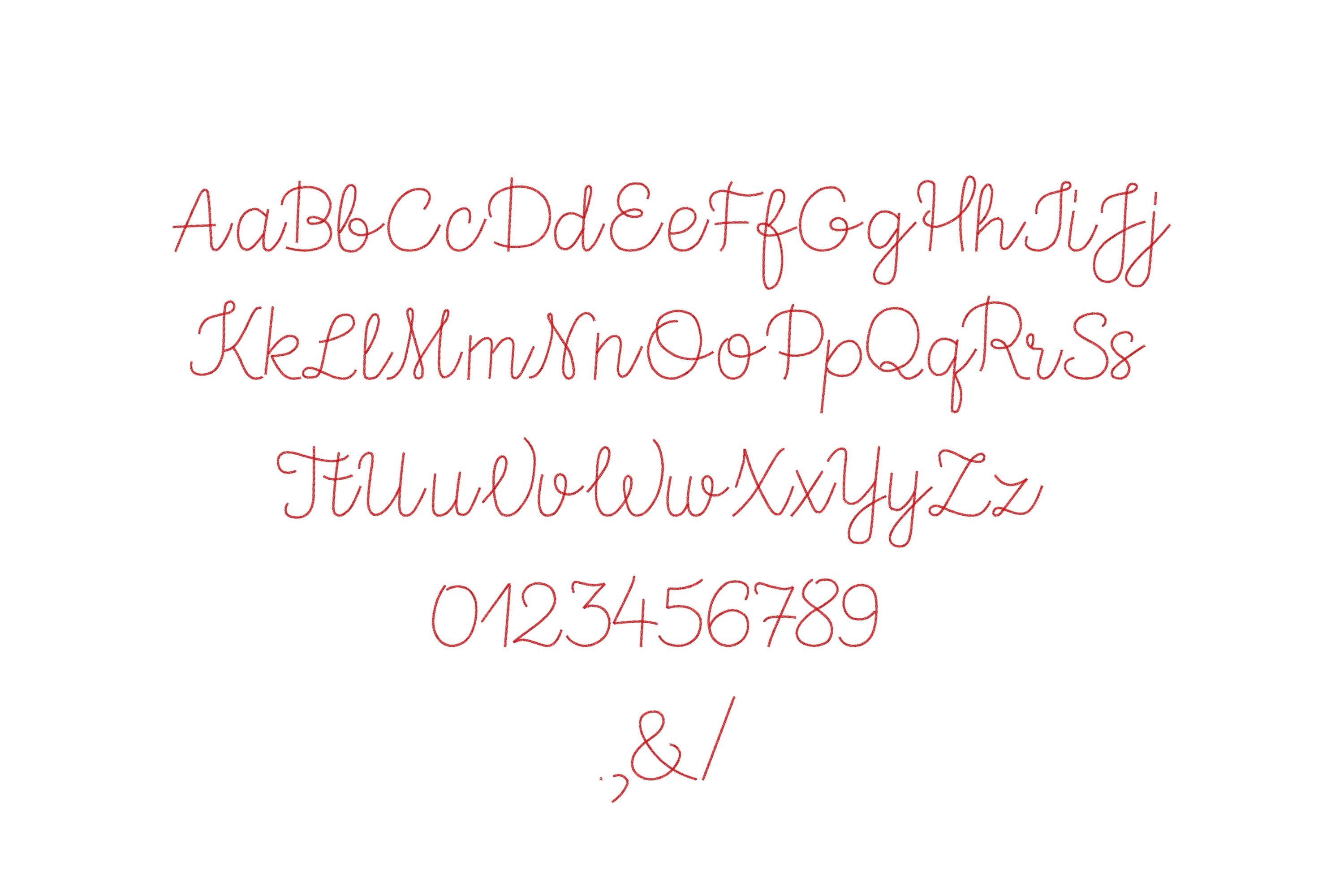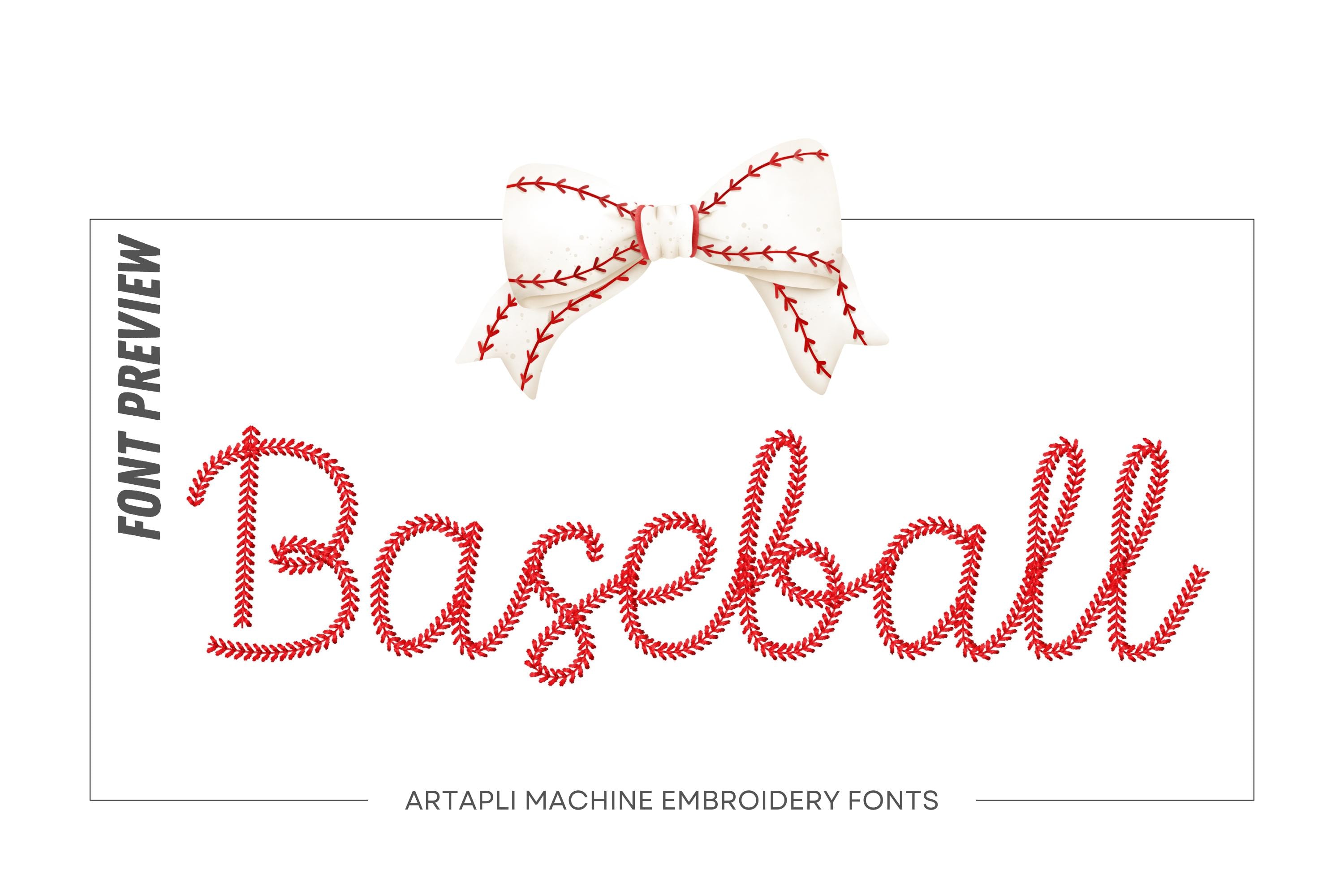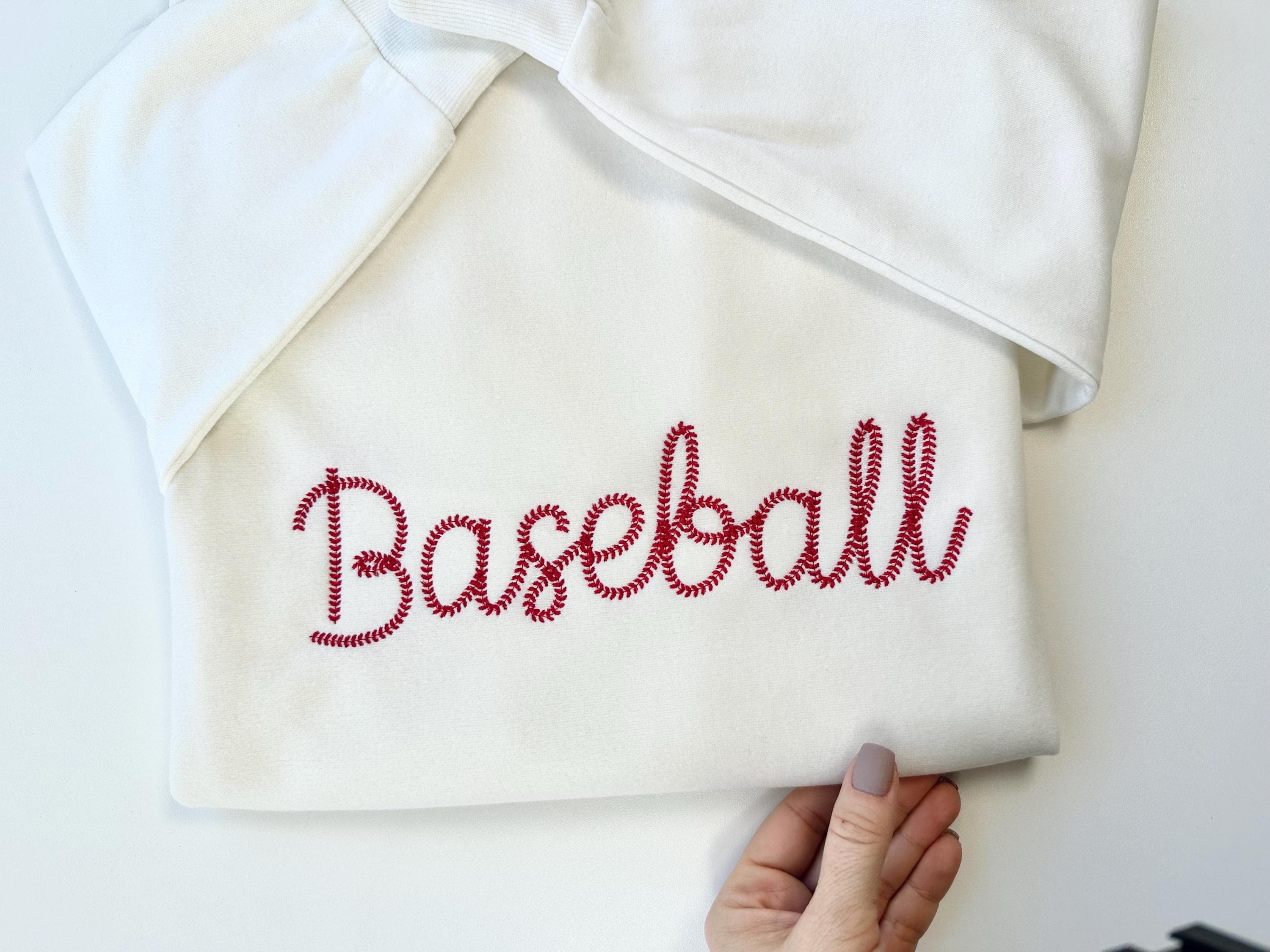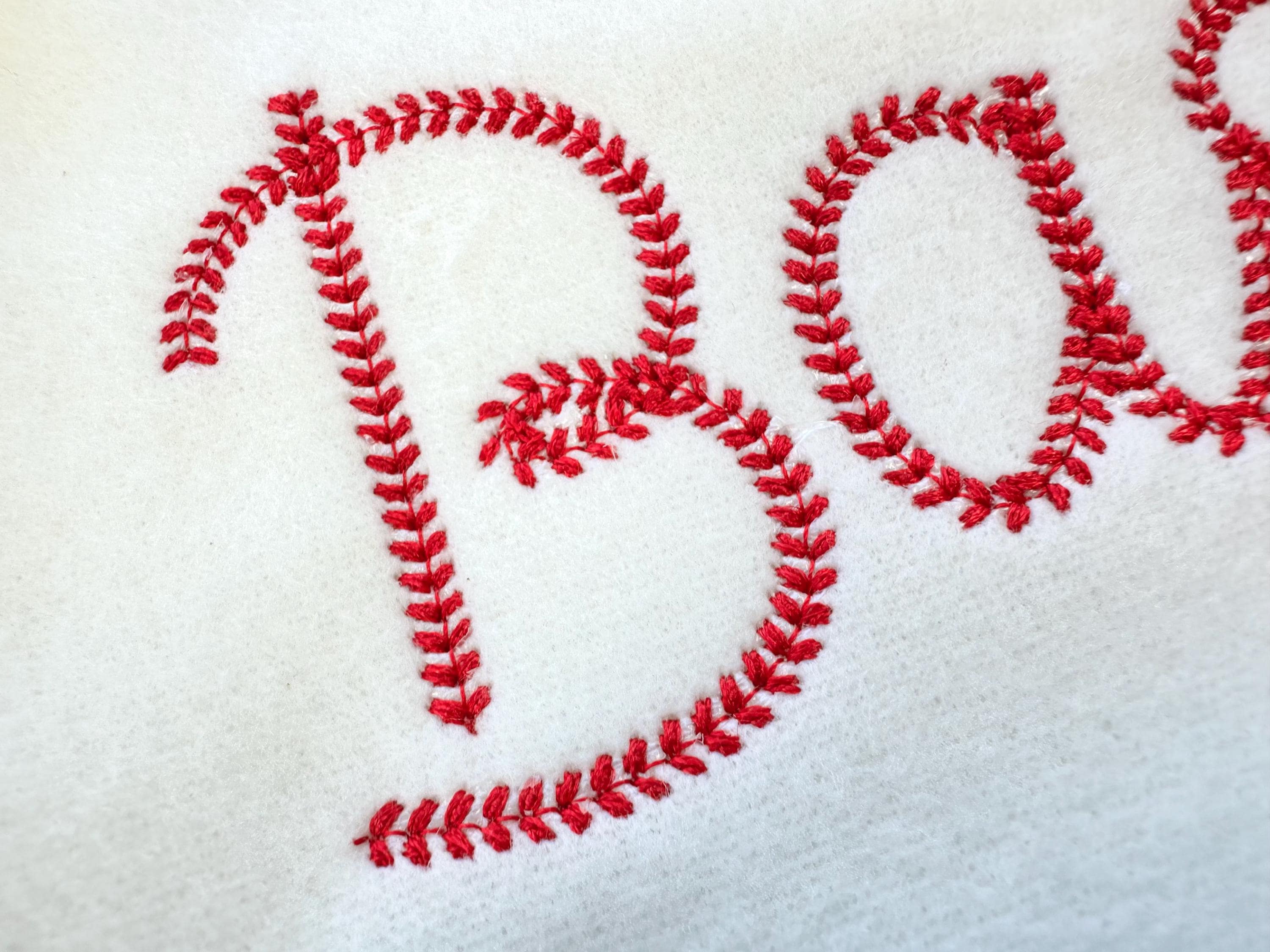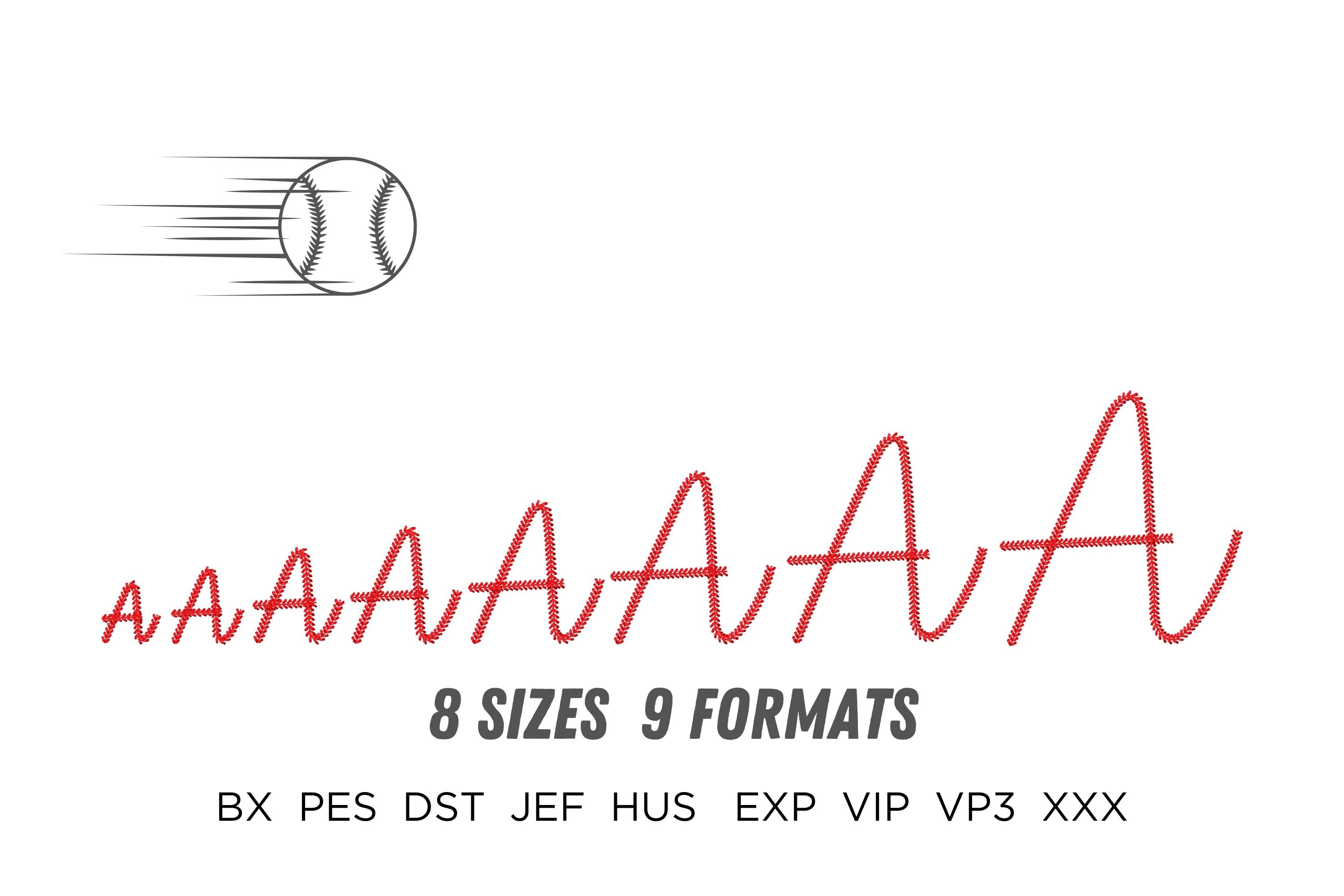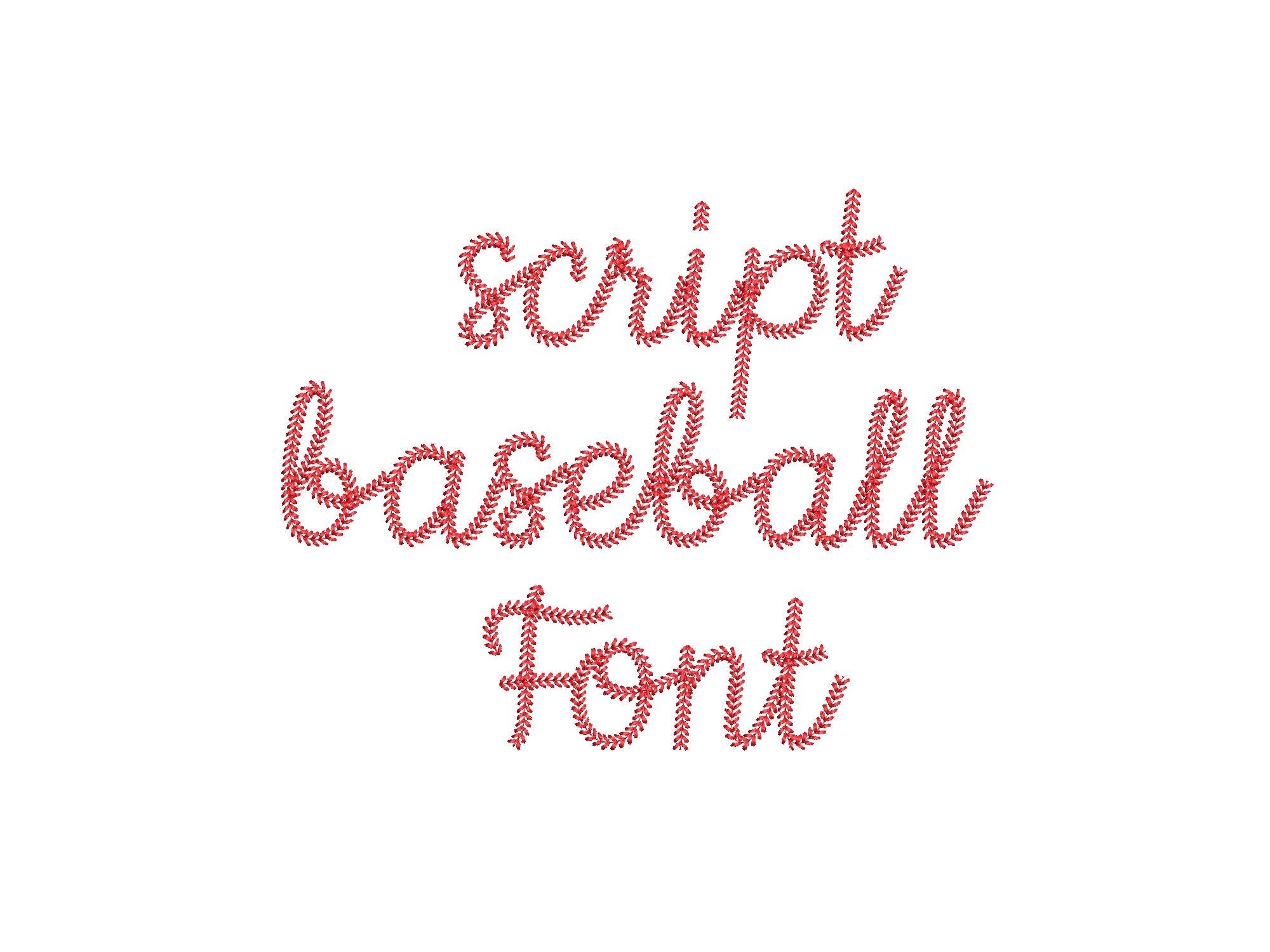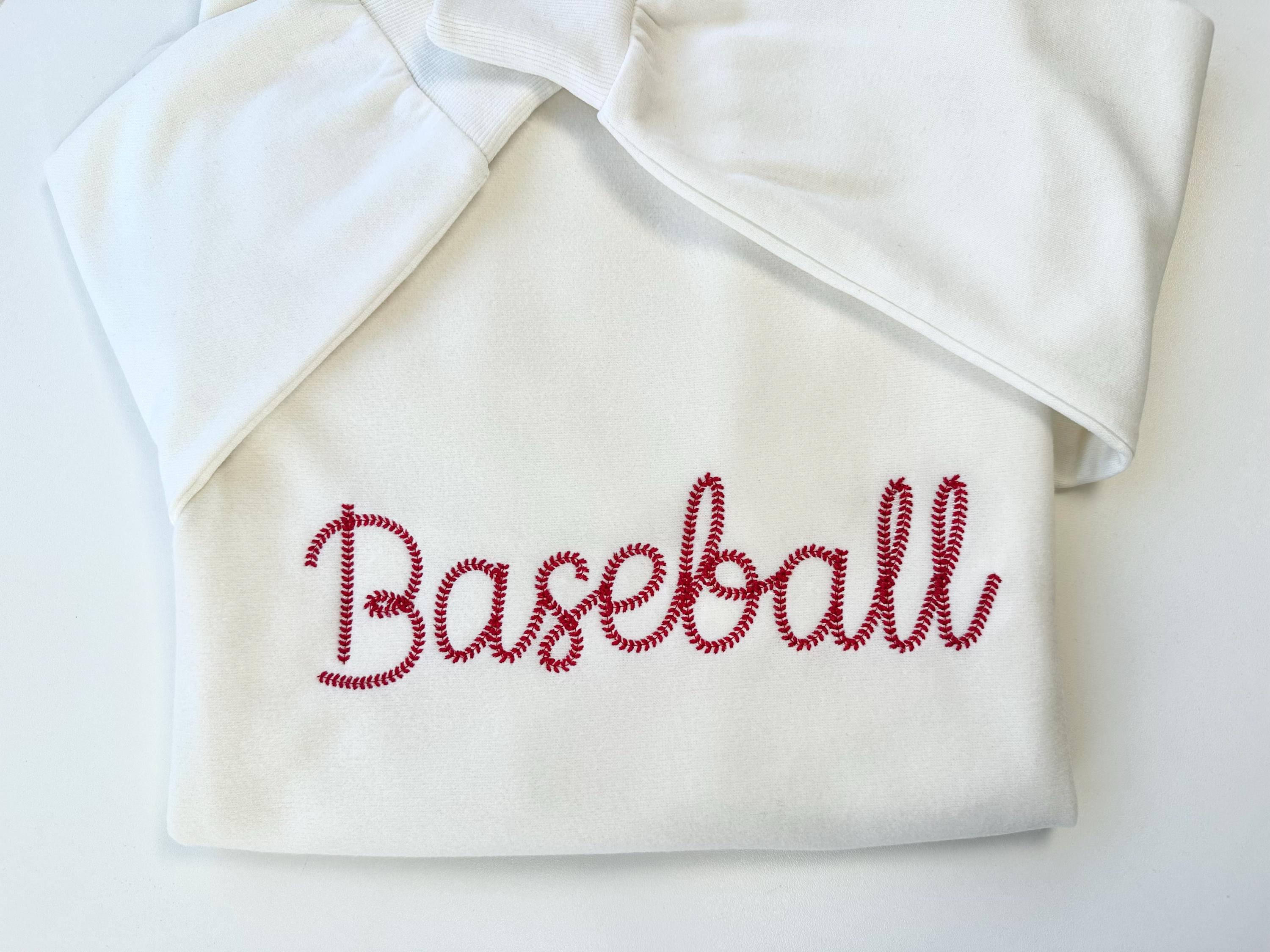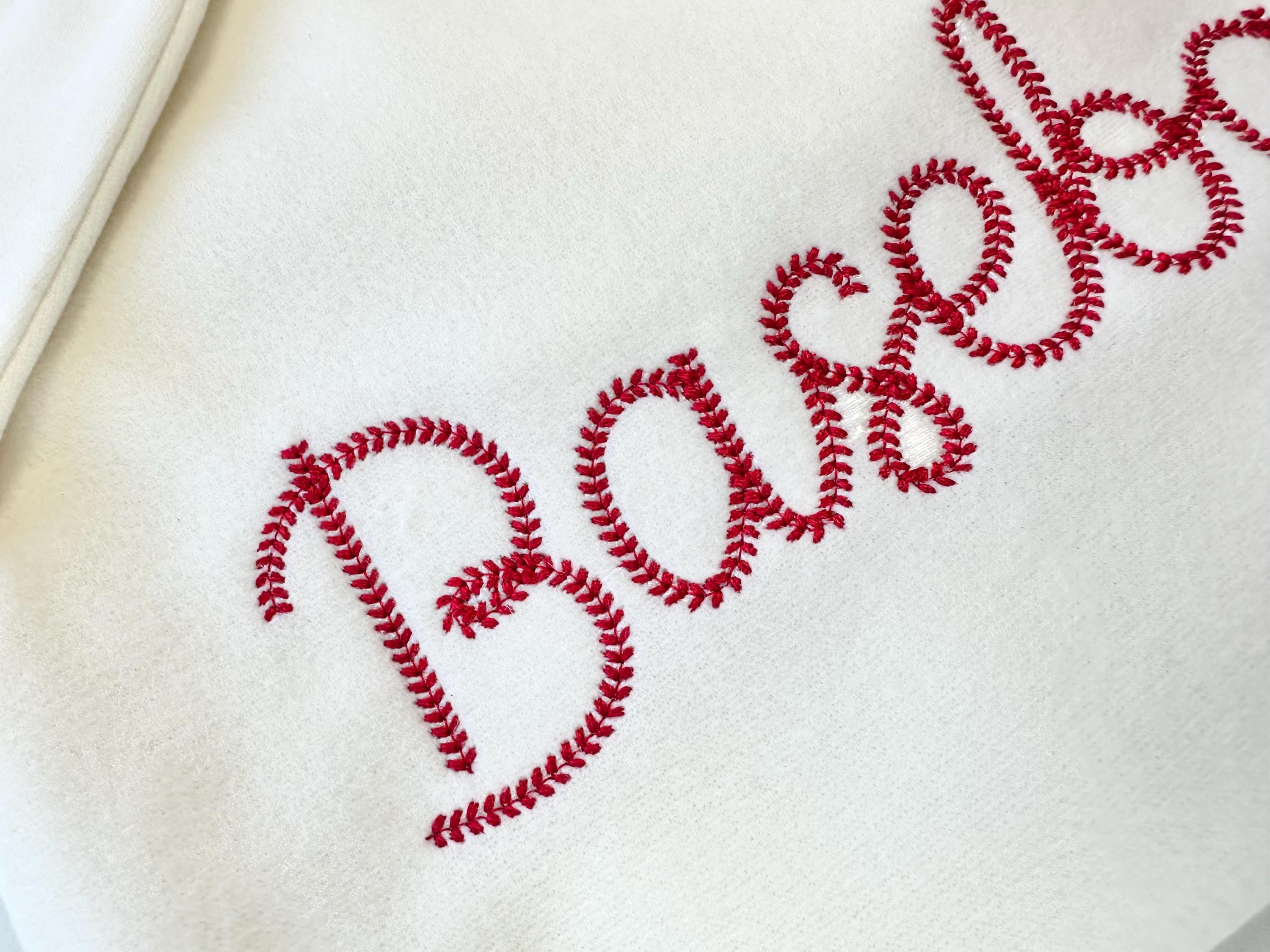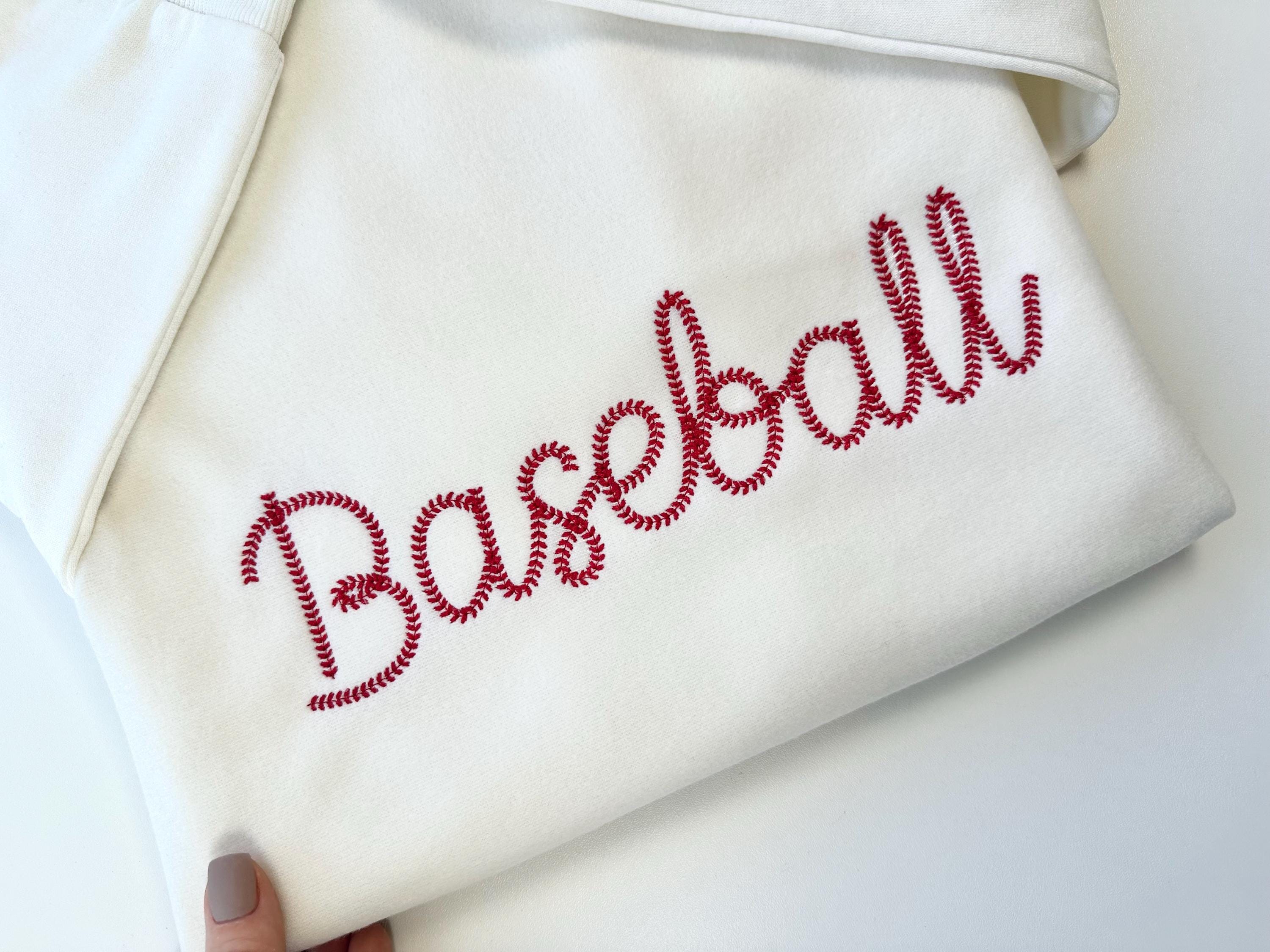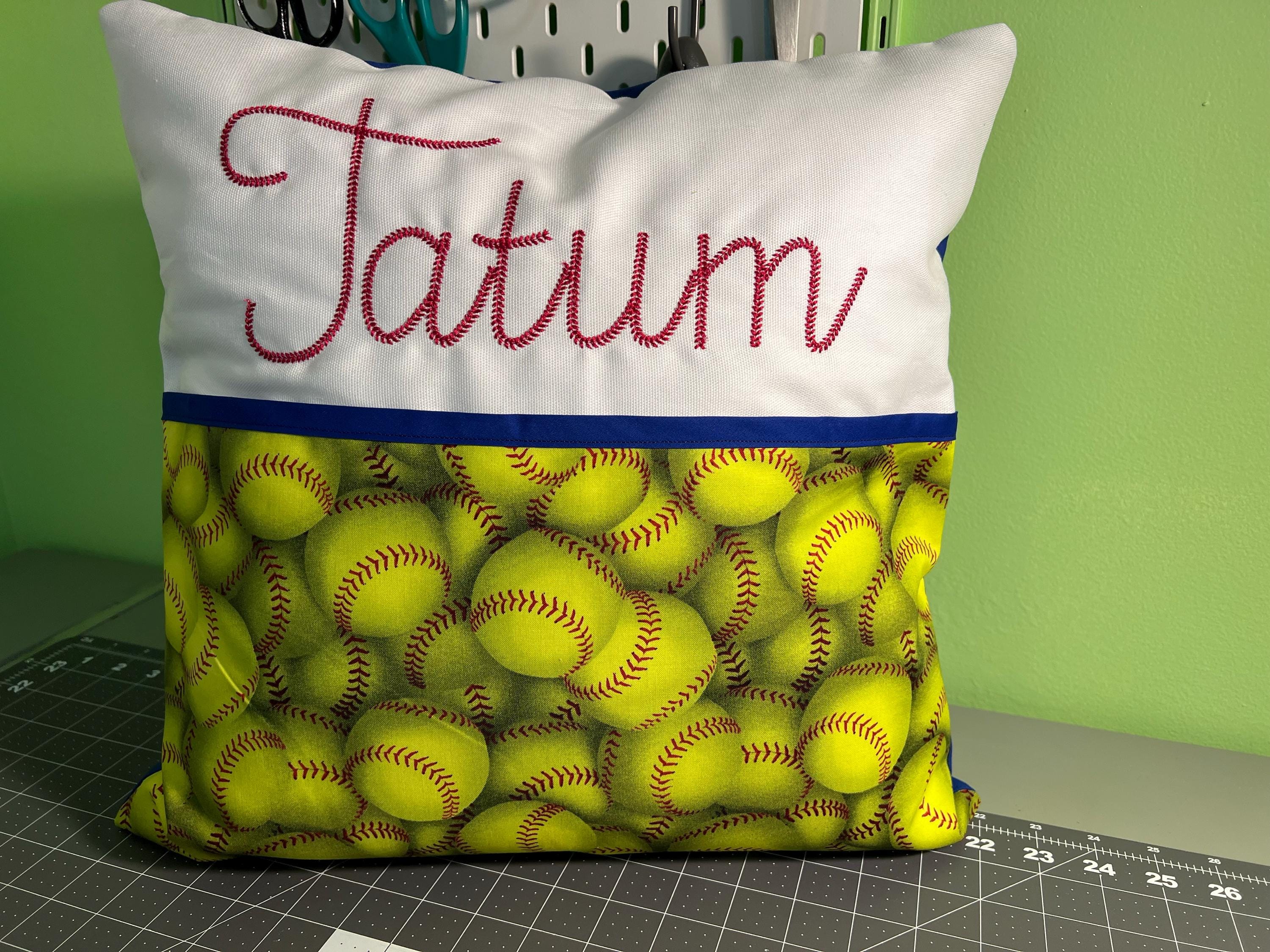
Baseball stitch handwritten script FONT softball sports stitch alphabet monogram kids boys machine embroidery designs sizes 1.3 up to 5.3in
Baseball stitch handwritten script FONT softball sports stitch alphabet monogram kids boys machine embroidery designs many sizes 1.3 up to 5.3 in
Whole alphabet Aa-Zz uppercase and lowercase letters, numbers 0-9, and punctuation.